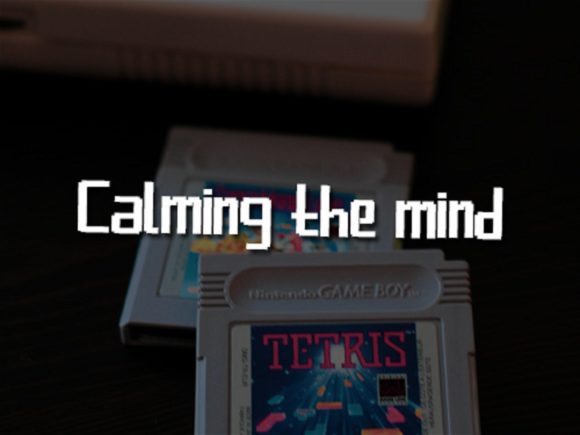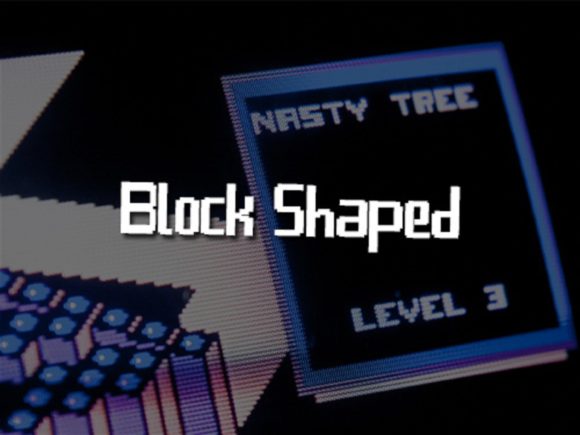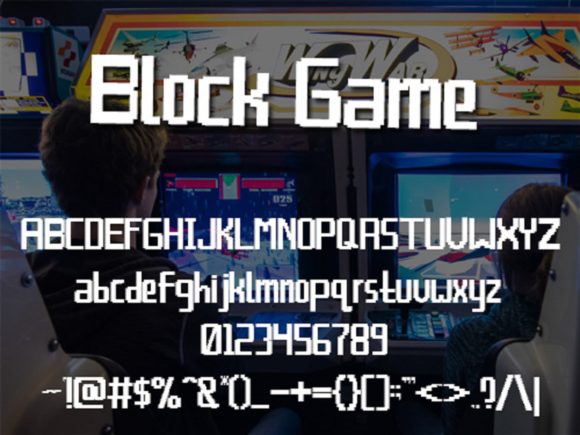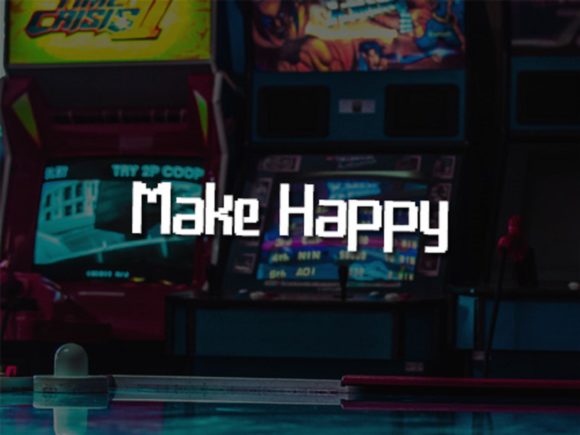
Introduction to Block Game Font
Block Game is a awesome and incredibly unique looking display font.
This font is ideal for writing web designs, business cards, or pretty much anything else that requires a unique touch .
Key Features of Block Game Font
Why Choose Block Game Font?
Block Game Font offers exceptional quality and versatility, making it a valuable addition to your design toolkit. Whether you’re creating for personal projects or commercial use, Block Game Font delivers professional results.